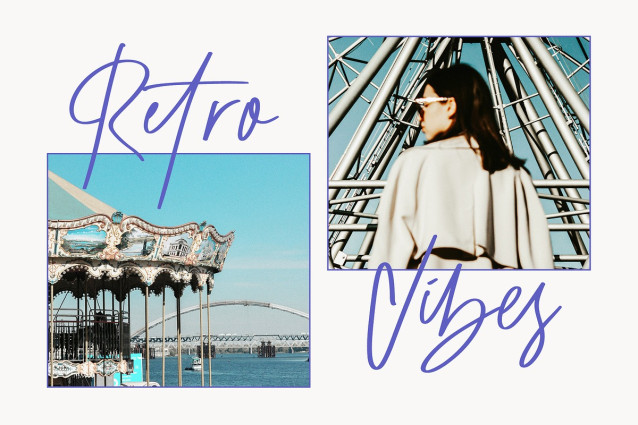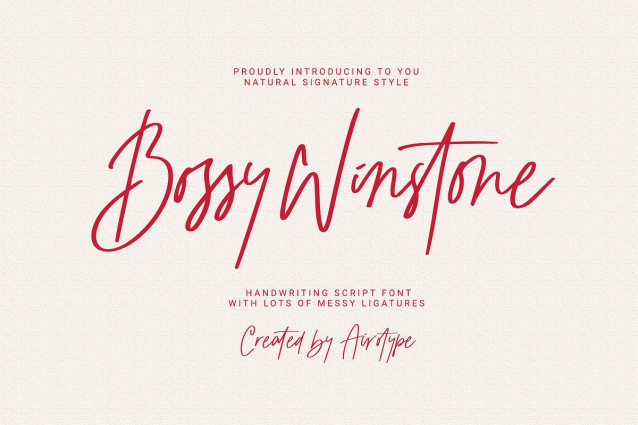
Bossy Winstone Font
Bossy Winstone Font is handwritten font with thin stroke. It has lots of ligatures to give natural handwriting and signature vibes. Make sure ligature features is available in your program.
Bossy Winstone is perfect for lots of design project, such as wedding invitation, stickers, crafting, logo, sblimation, greeting cards, and many more.